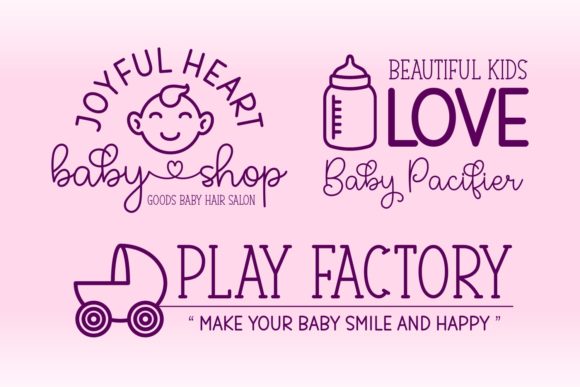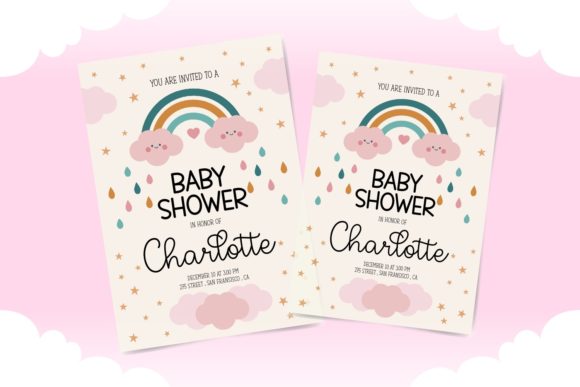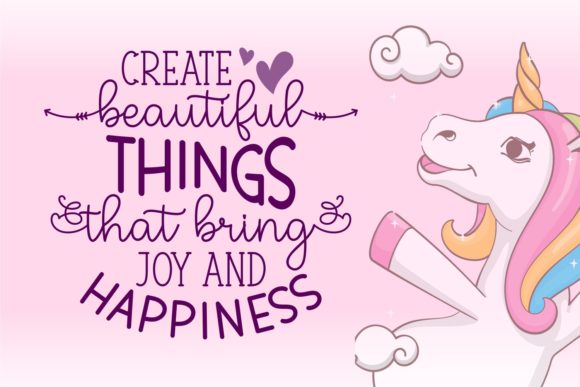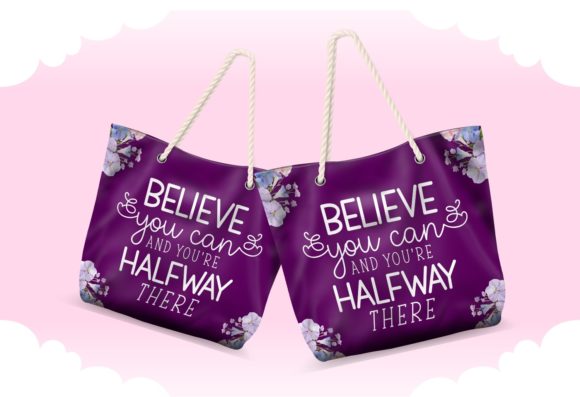
Hello Baby Stephanie Font: A Lovely and Versatile Trio Font for Designers and Crafters
Are you a designer or crafter looking for a font that can add a touch of elegance and playfulness to your projects? Look no further than the Hello Baby Stephanie font! This lovely and versatile trio font is perfect for a wide range of design applications, from digital crafts to commercial projects. In this article, we’ll take a closer look at the features and benefits of Hello Baby Stephanie, and explore how you can use it to take your designs to the next level.
A Trio of Fonts: Sans Serif, Serif, and Handwritten
One of the standout features of Hello Baby Stephanie is that it comes in three different font styles: sans serif, serif, and handwritten. This means that you can choose the font that best suits your design needs, whether you’re looking for a clean and modern look or a more playful and whimsical feel. The sans serif font is perfect for headlines and titles, while the serif font adds a touch of sophistication and elegance to body text. The handwritten font, meanwhile, is ideal for adding a personal touch to your designs.
Neatly Crafted and Highly Detailed
Hello Baby Stephanie is more than just a font – it’s a carefully crafted design element that can elevate your projects to new heights. The font is highly detailed, with intricate lines and curves that give it a premium feel. Whether you’re using it for a digital project or a print design, Hello Baby Stephanie is sure to impress.
PUA Encoded for Easy Access to Glyphs and Swashes
Another great feature of Hello Baby Stephanie is that it’s PUA (Private Use Area) encoded. This means that you can access all the glyphs and swashes with ease, giving you even more creative freedom to customize your designs. With PUA encoding, you can easily insert special characters, ligatures, and other decorative elements into your text, making your designs stand out from the crowd.
Hello Baby Stephanie is a versatile font that can be used for a wide range of design applications. Whether you’re a professional designer or a crafter looking to add a personal touch to your projects, this font is perfect for you. Here are just a few ideas for how you can use Hello Baby Stephanie:
- Digital crafts: Use Hello Baby Stephanie to create beautiful digital crafts, such as printable art, planners, and journals.
- Commercial projects: Use the font for commercial projects, such as branding, packaging, and advertising.
- Personal projects: Use Hello Baby Stephanie to add a personal touch to your personal projects, such as scrapbooking, card making, and party decorations.
Why Choose Hello Baby Stephanie?
So why choose Hello Baby Stephanie over other fonts? Here are just a few reasons:
- Unique and versatile: Hello Baby Stephanie is a one-of-a-kind font that can be used for a wide range of design applications.
- High-quality design: The font is carefully crafted and highly detailed, giving it a premium feel.
- Easy to use: With PUA encoding, you can easily access all the glyphs and swashes, making it easy to customize your designs.